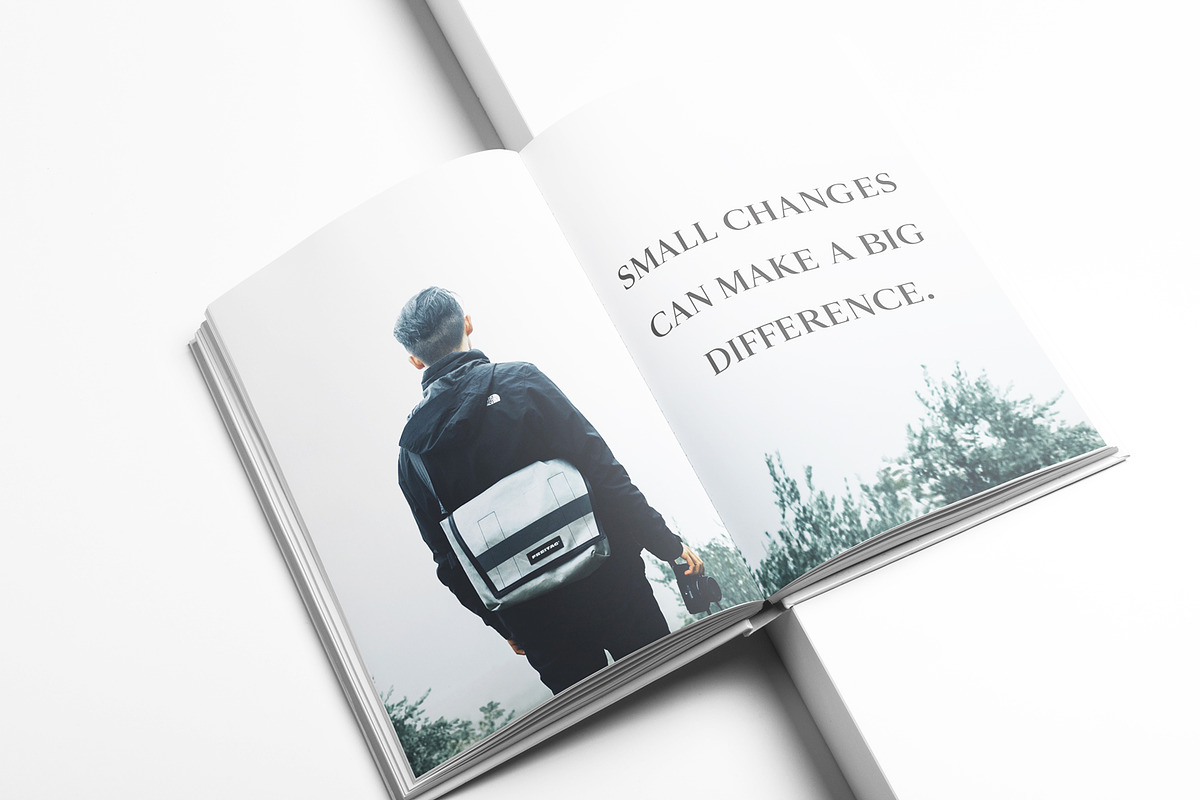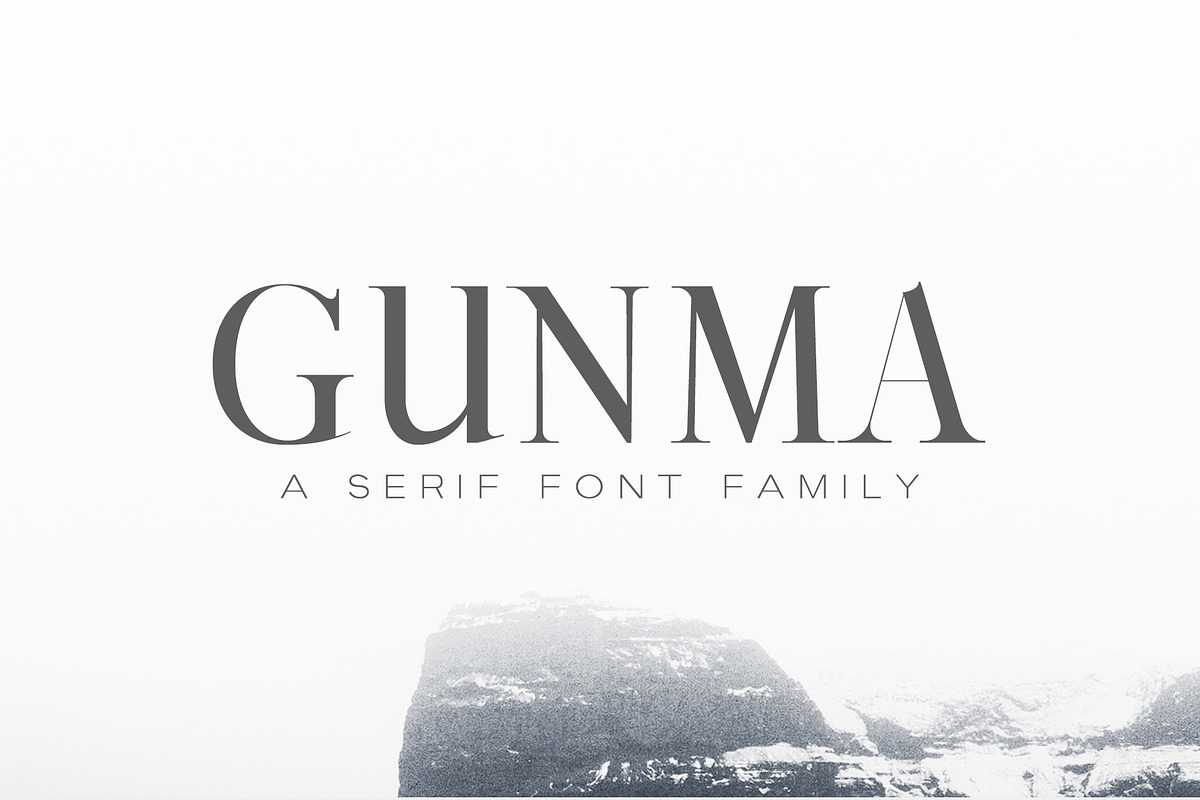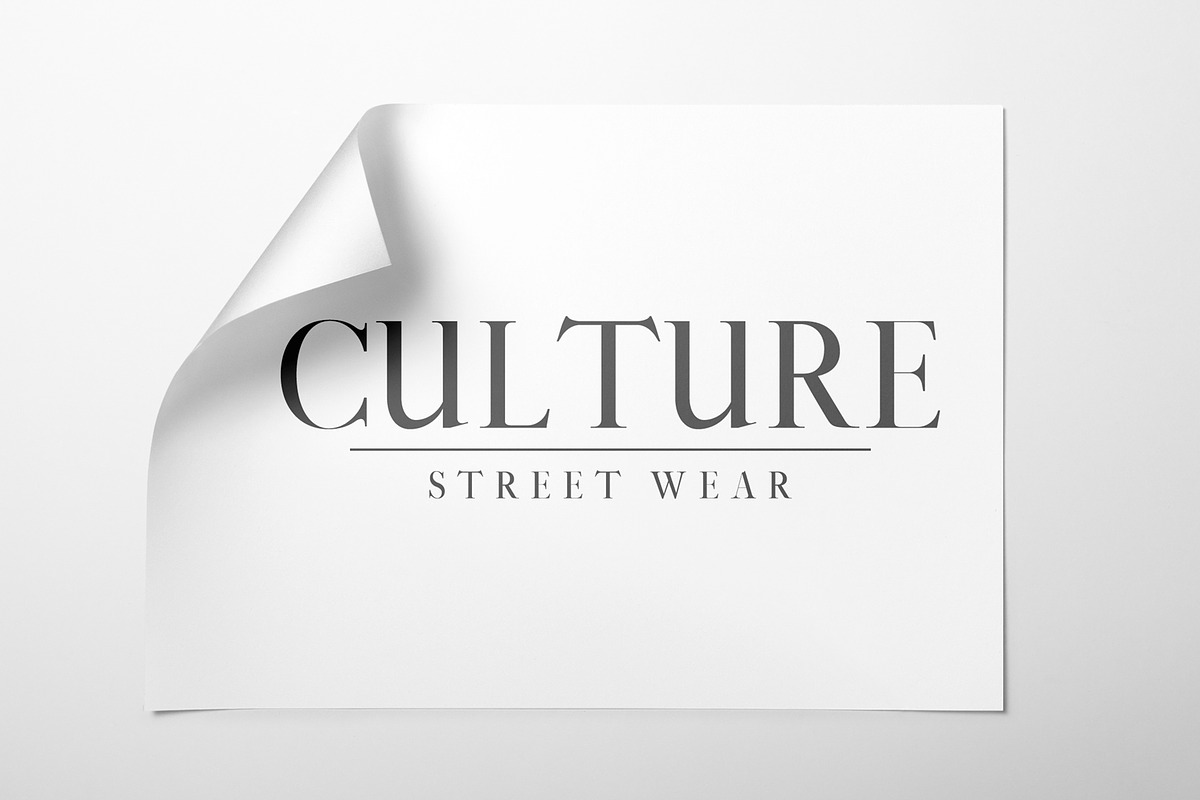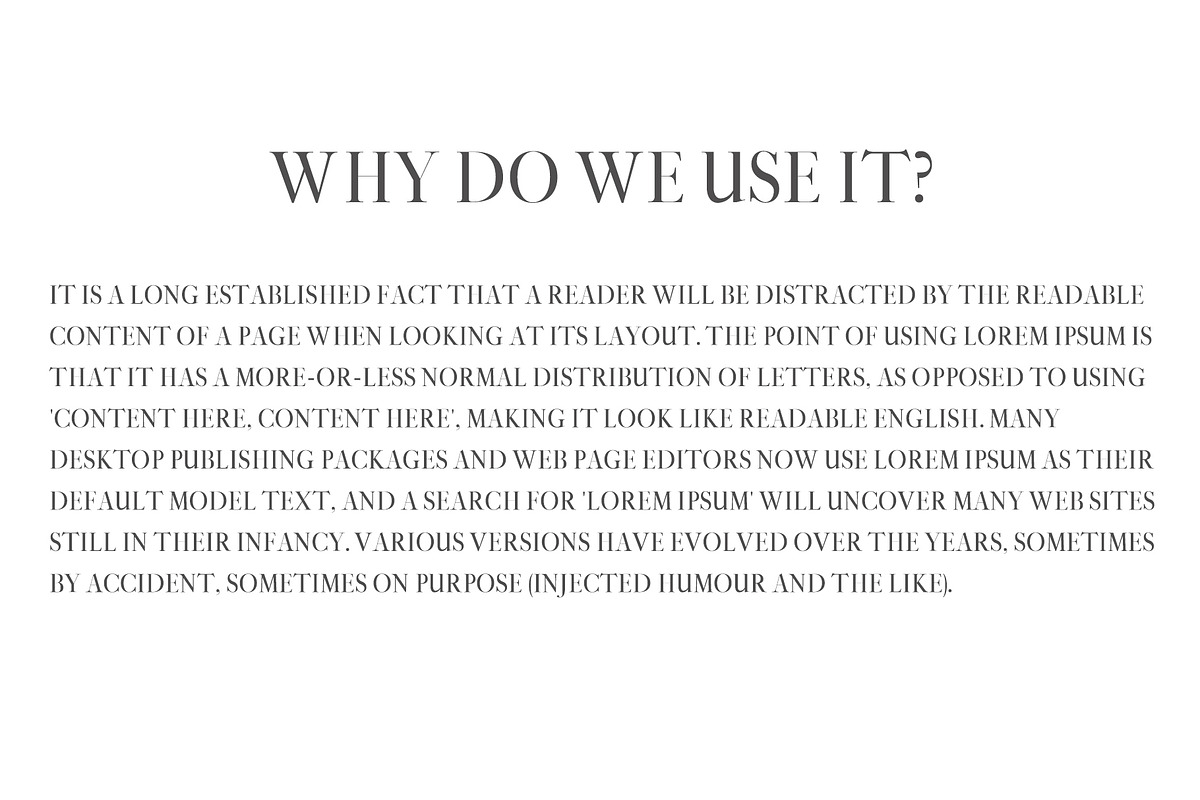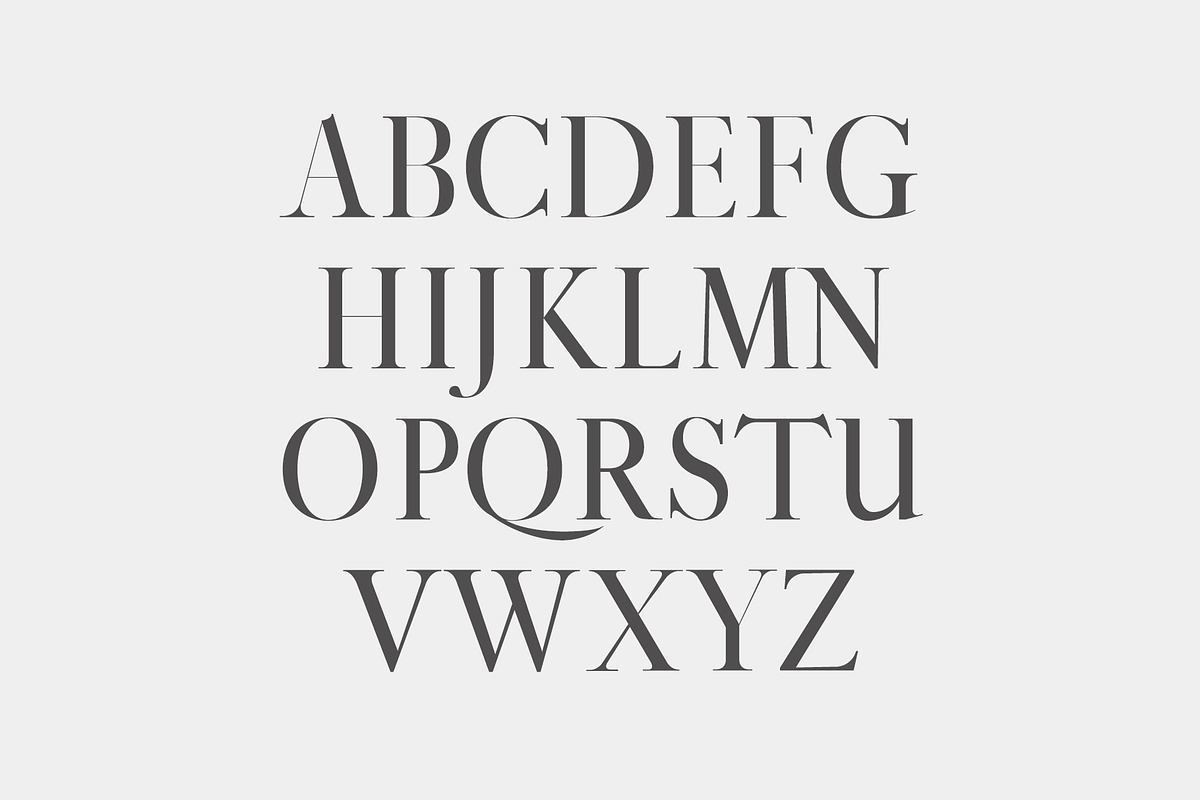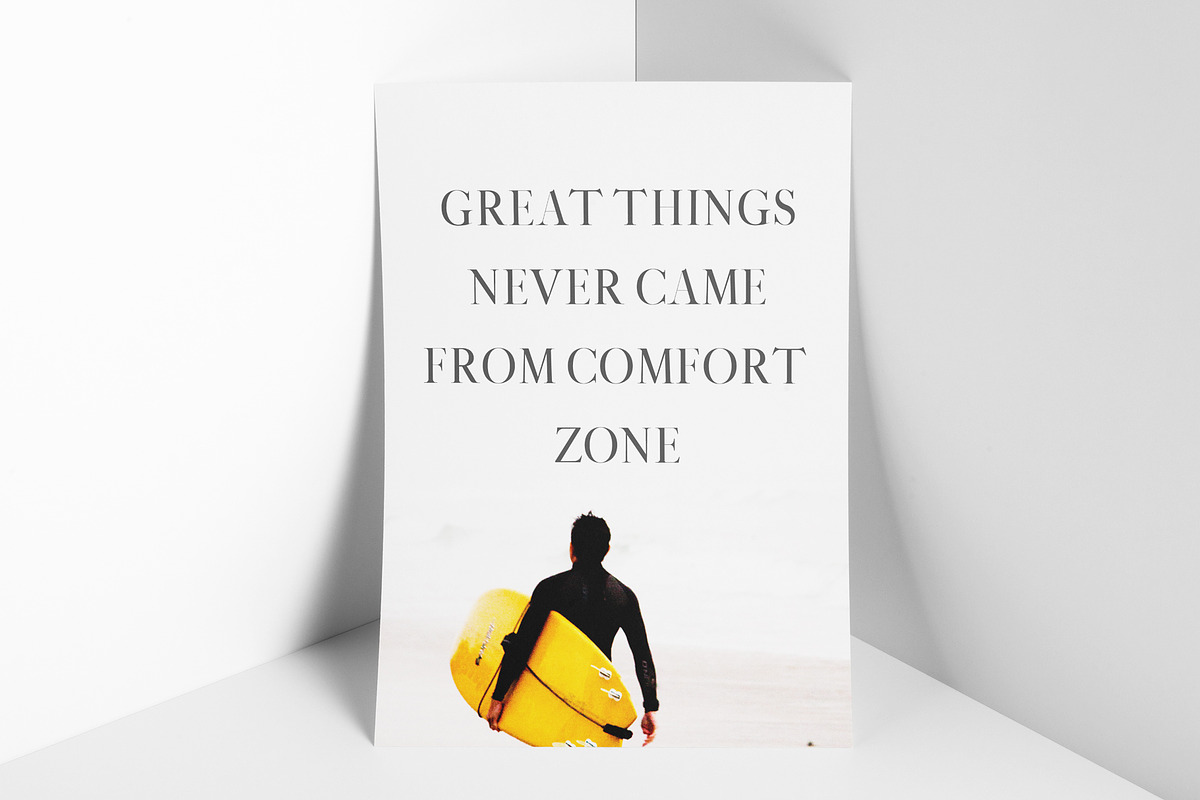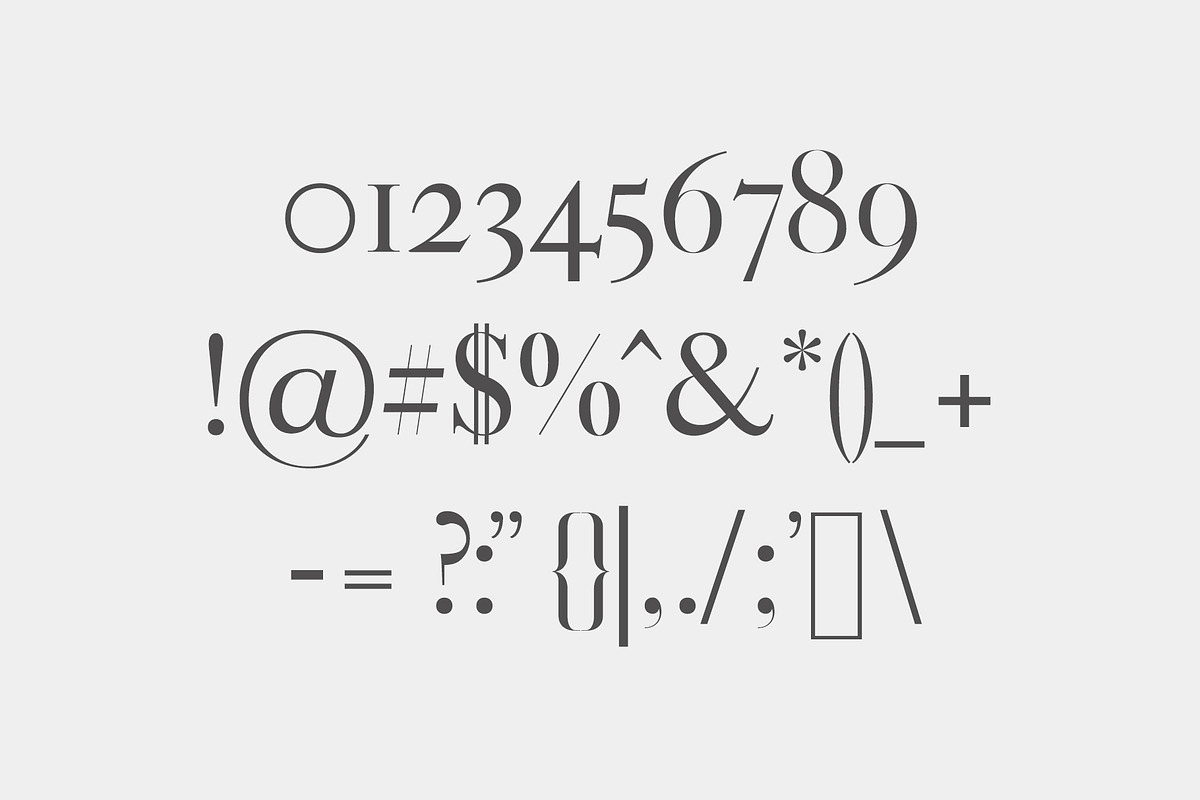
Gunma Serif Font Family
Gunma Serif Font Family Pack is an astonishing serif font comes with 5 different weights. It includes all basic glyphs with Non-English characters. It can be used for headlines, posters, branding, packaging, presentations, logo, quotes, titles, magazines headings, web layouts, advertising, invitations, packaging design, books, and nearly any creative design.
Font Weight: Regular, Light, Round, Smooth and Bold
- Gunma Serif Font Family Pack is an astonishing serif font comes with 5 different weights.
- It includes all basic glyphs with Non-English characters.
- Font Weight: Regular, Light, Round, Smooth and Bold
- Gunma Light
- Gunma Regular
- Gunma Bold
- Gunma Round
- Gunma Smooth